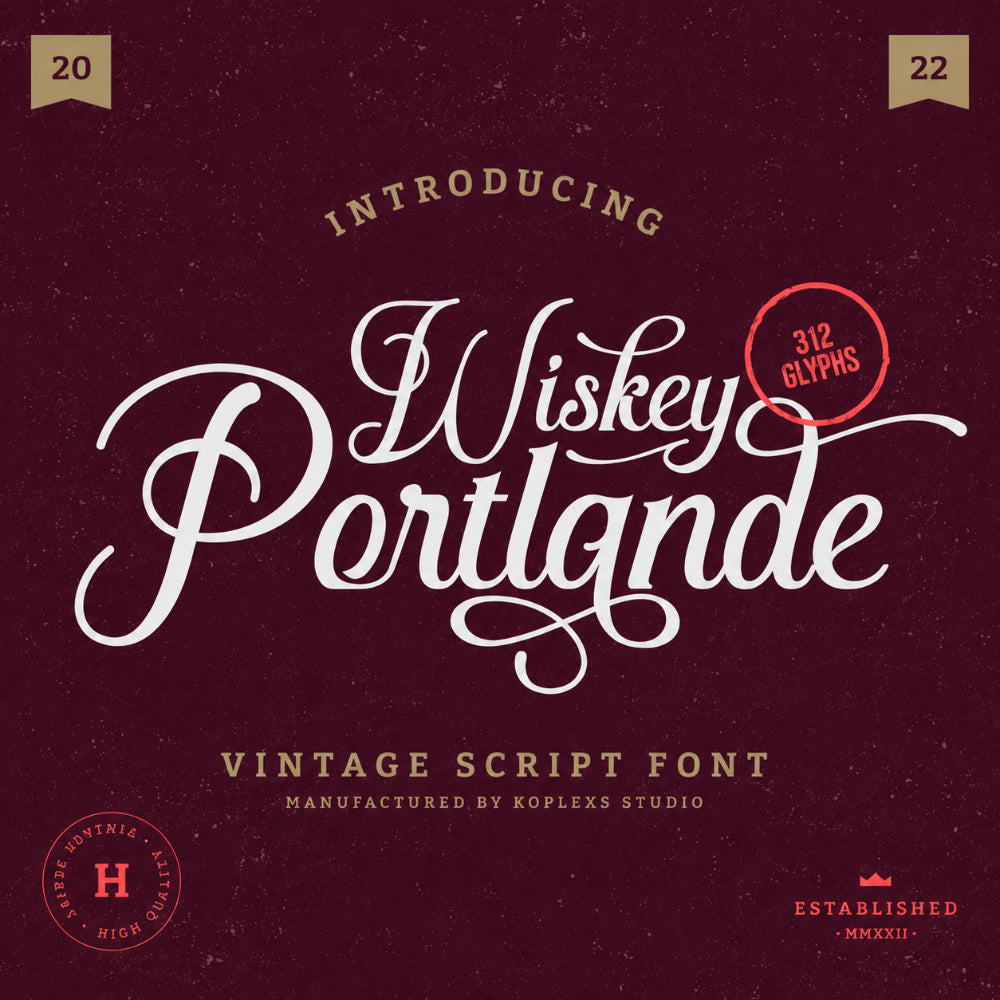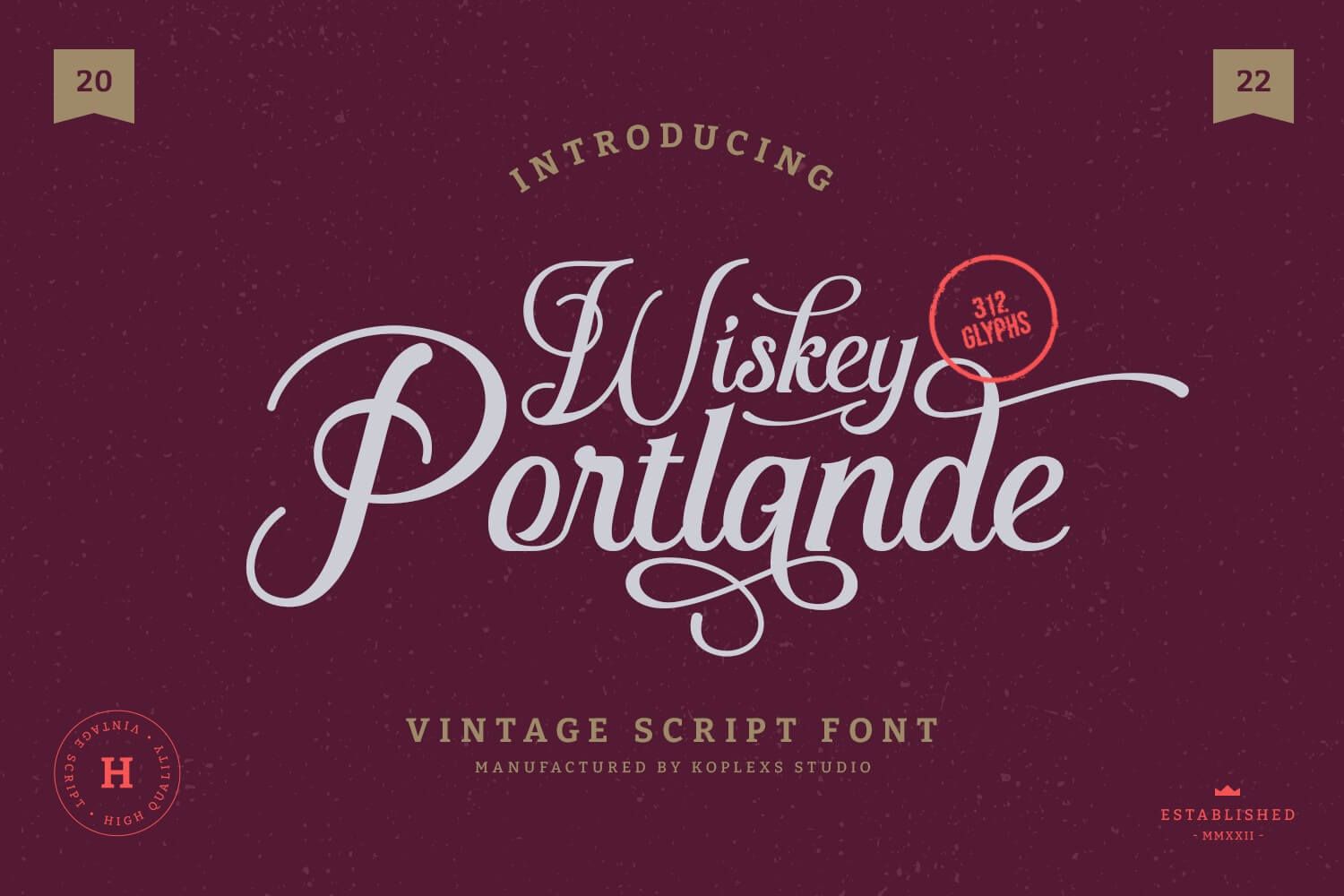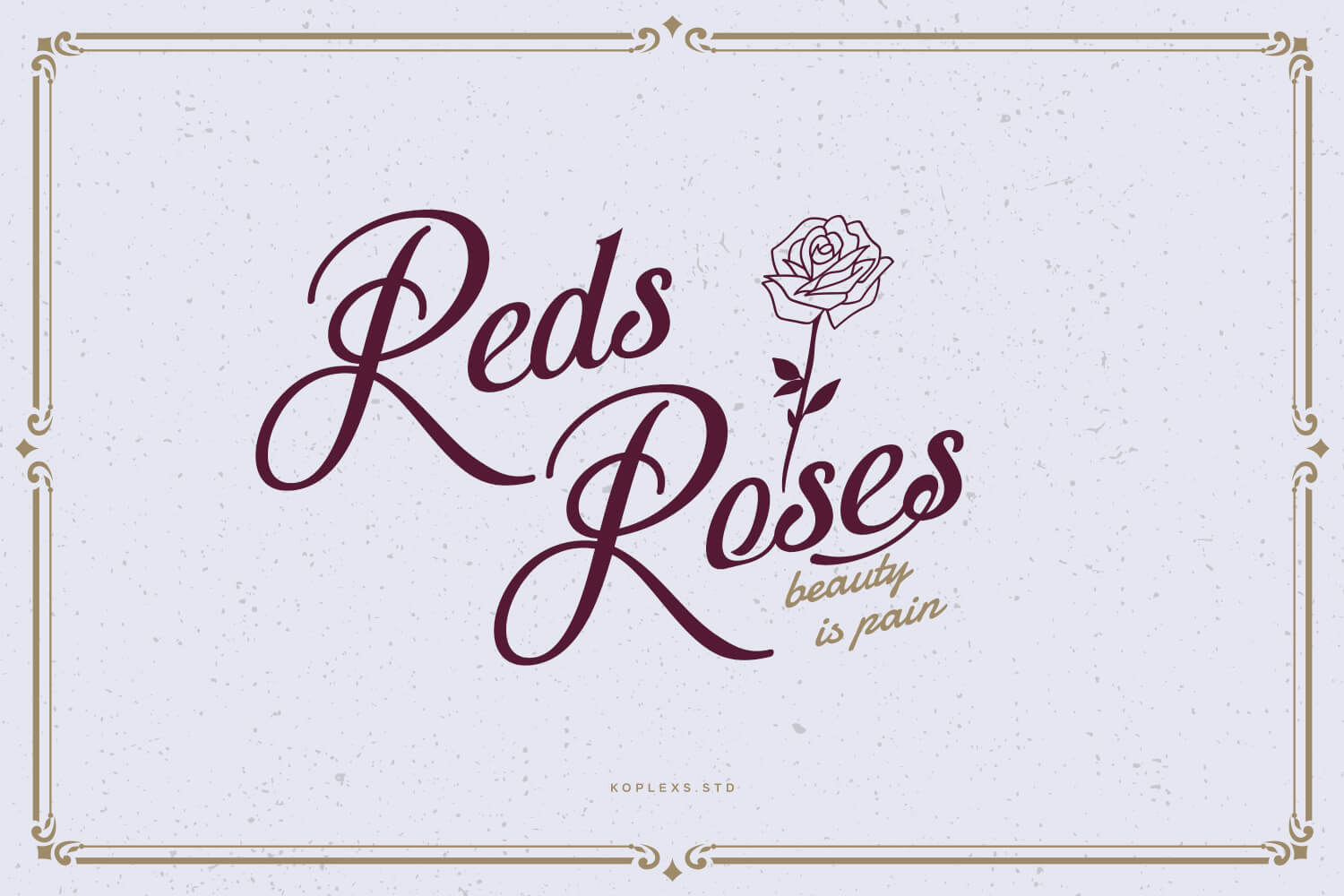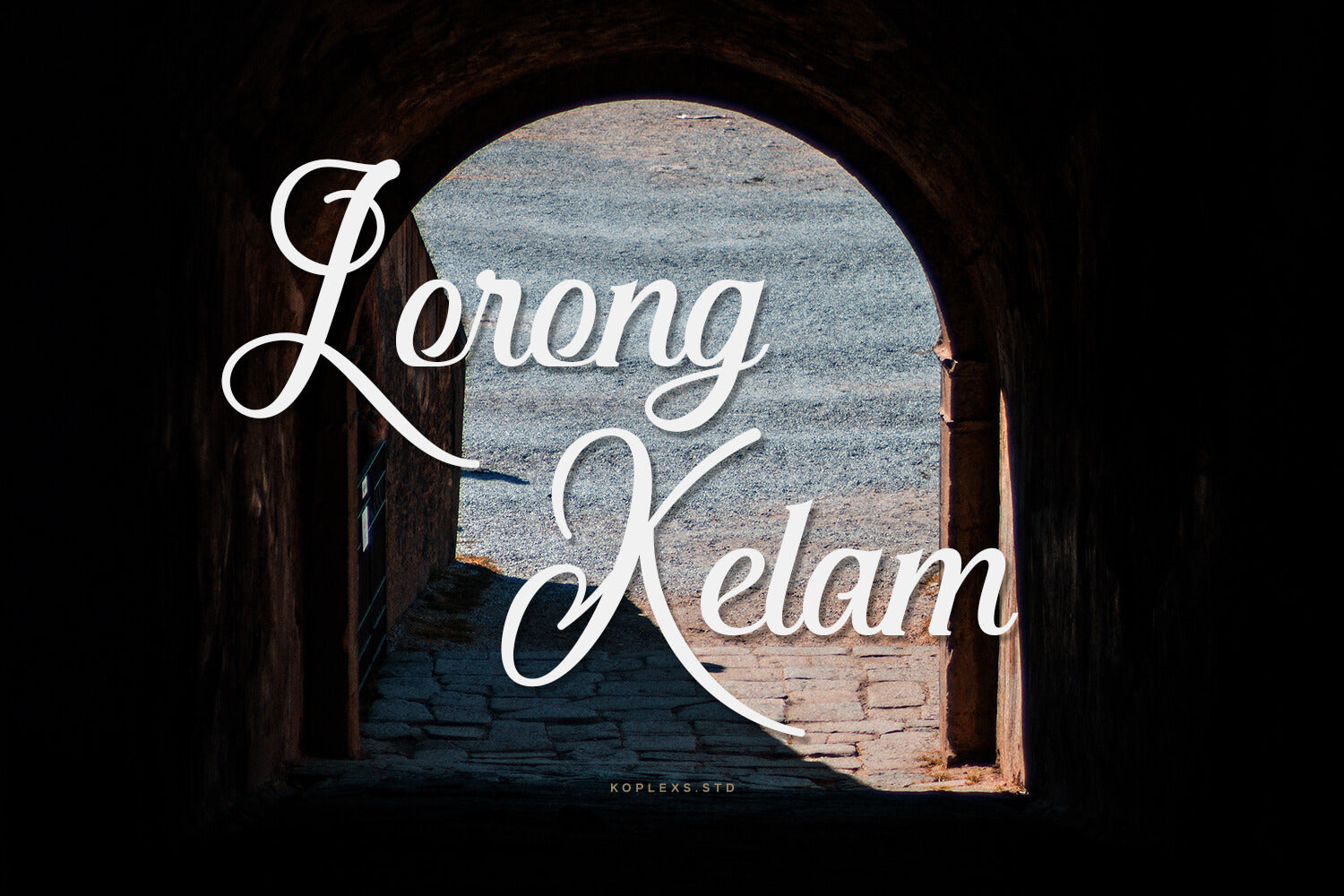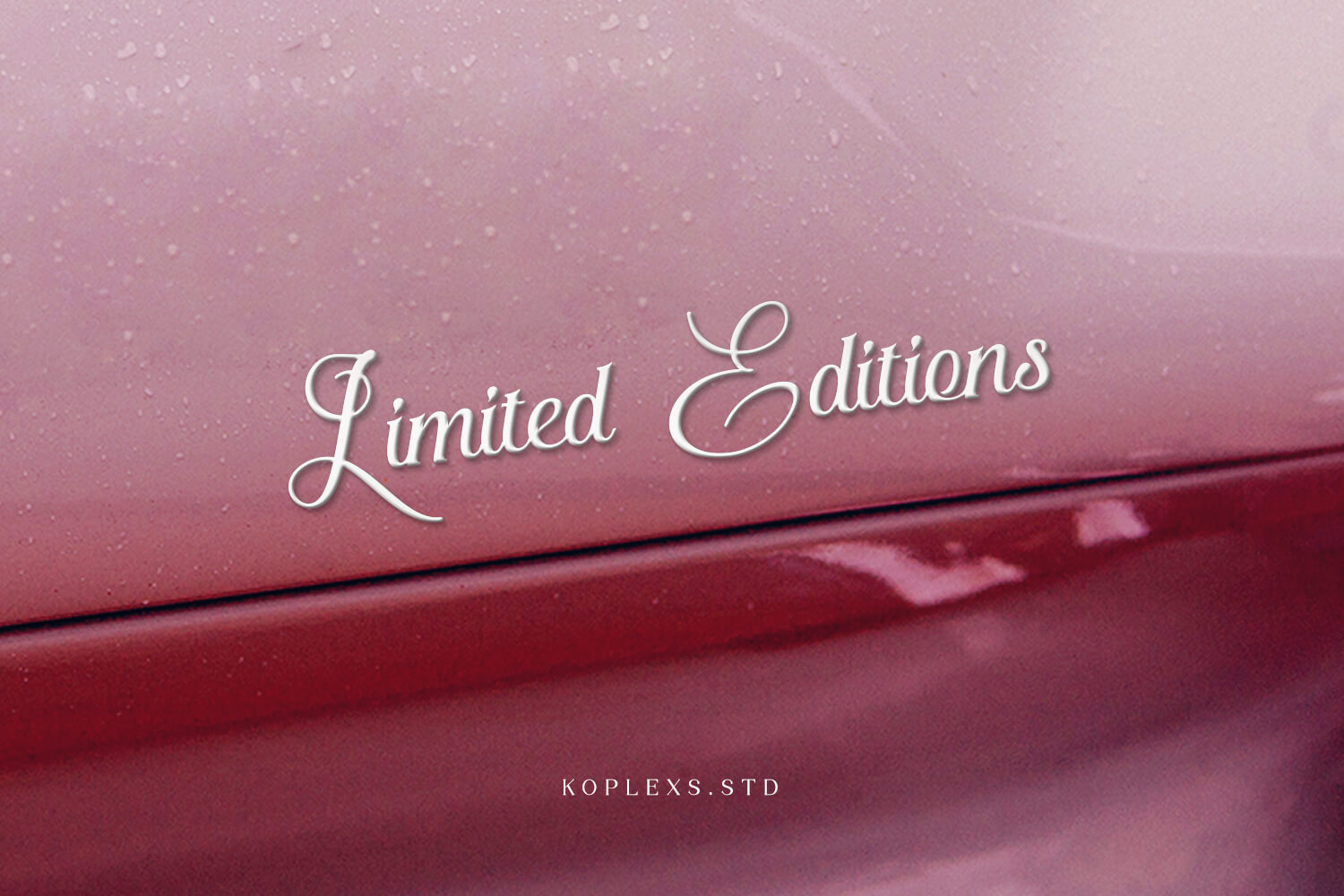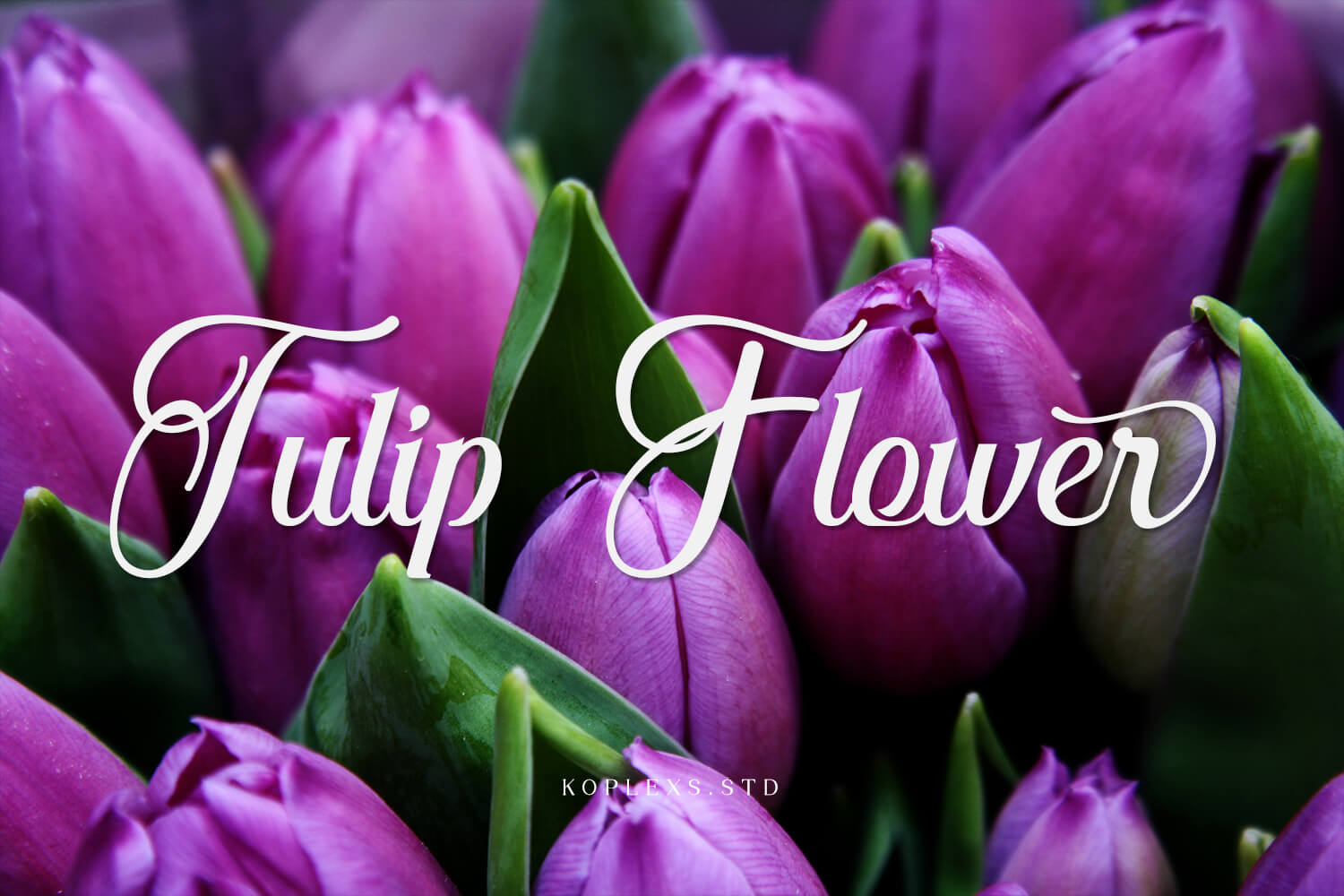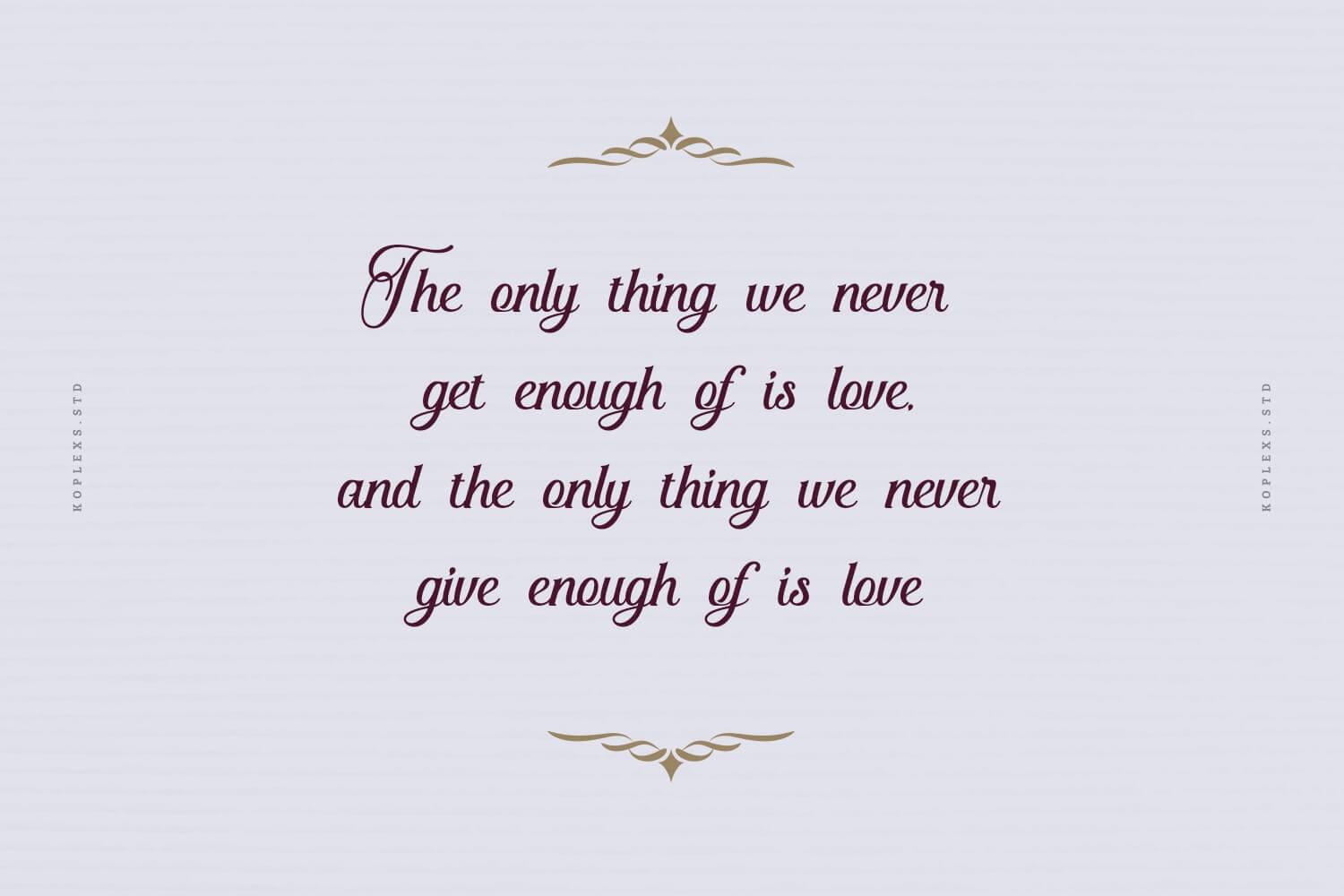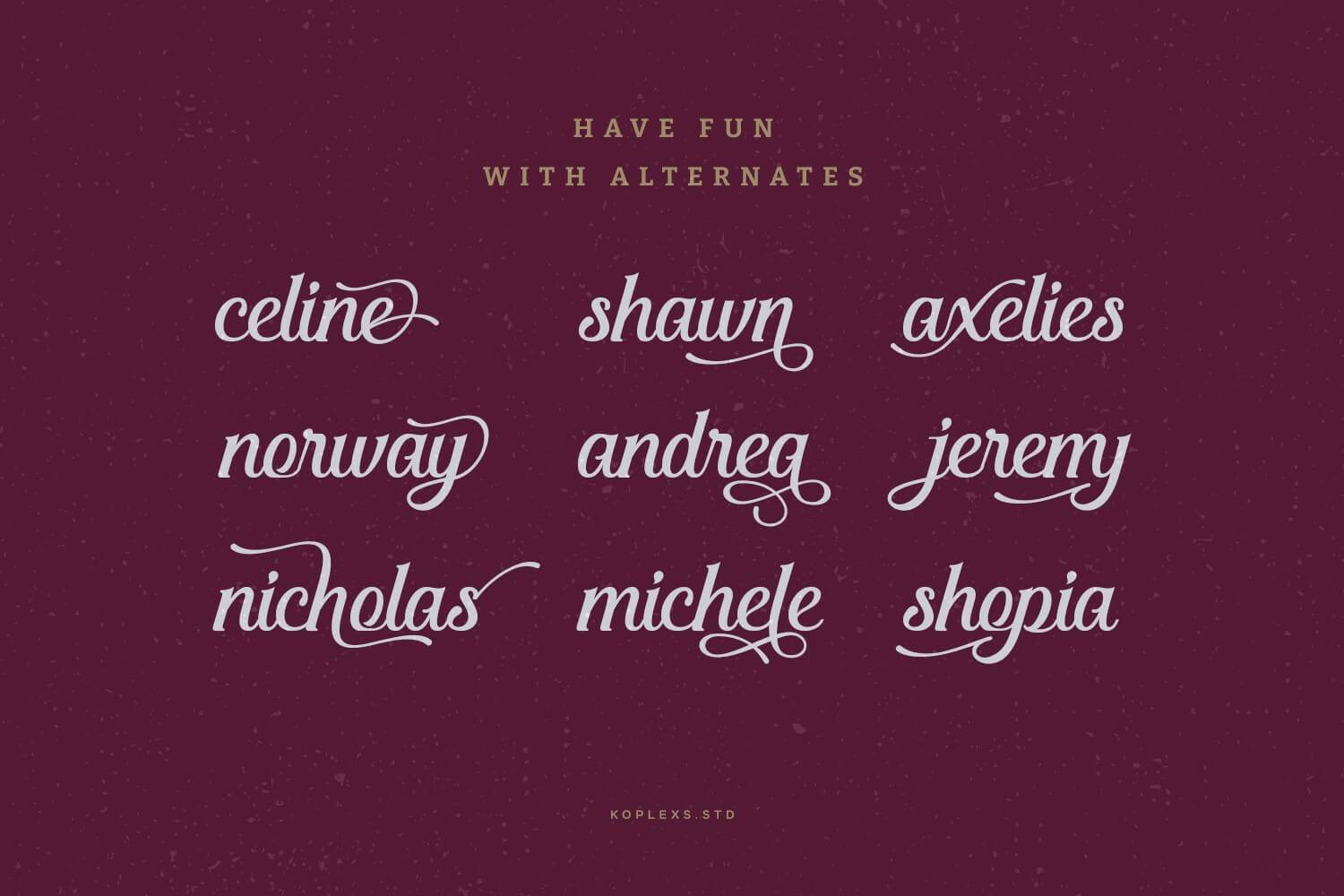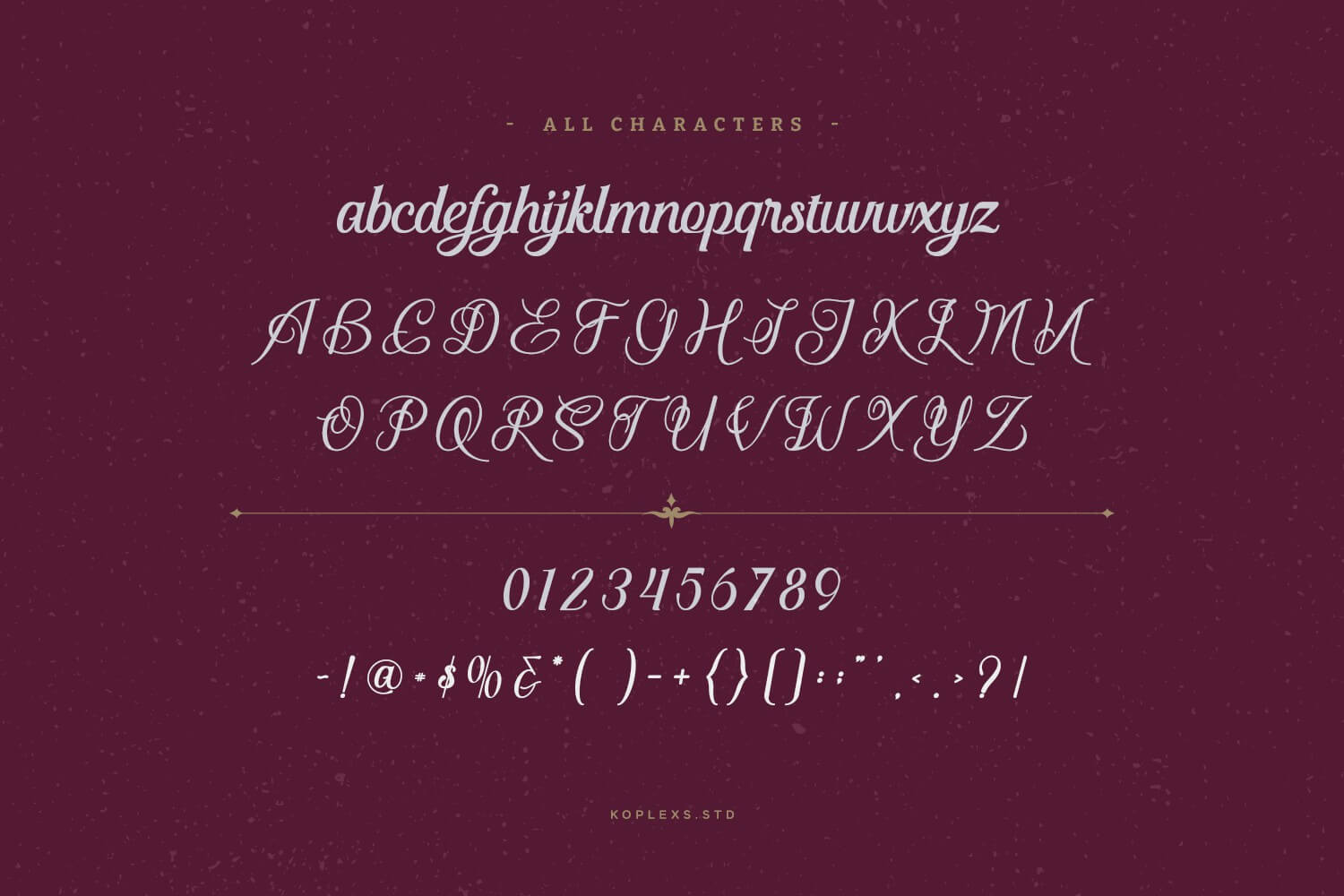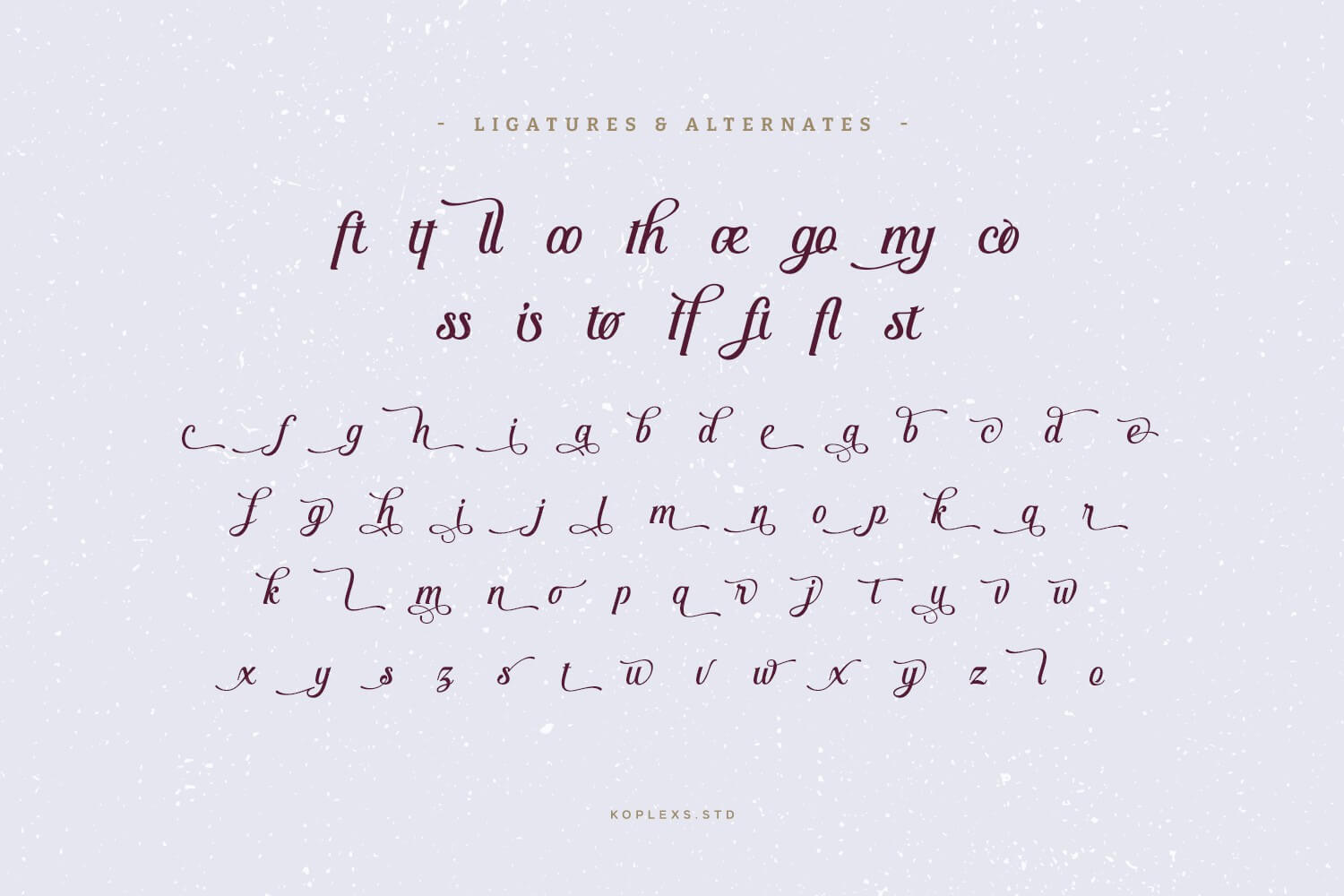
Wiskey Portlande Font
Wiskey Portlande Font is a timeless vintage script font designed to bring elegance, luxury, and personality to your creative projects. Featuring beautiful alternates and ligatures, this cursive calligraphy font creates natural, flowing typography that is perfect for eye-catching logos, sophisticated branding, wedding stationery, cosmetic packaging, product labels, and premium marketing materials.
Blending the charm of a classic font with the versatility of modern fonts, Wiskey Portlande works beautifully as a branding font, logo font, heading font, headline font, poster font, cover font, wedding font, cosmetic font, beauty font, love font, aesthetic font, and luxury font. Download Wiskey Portlande Font today and give your designs a refined, professional, and unforgettable look.
Wiskey Portlande Font is a vintage script font featuring elegant alternates and ligatures, designed for creating flowing typography. This cursive calligraphy font combines classic charm with modern versatility, suitable for a variety of branding and marketing applications.